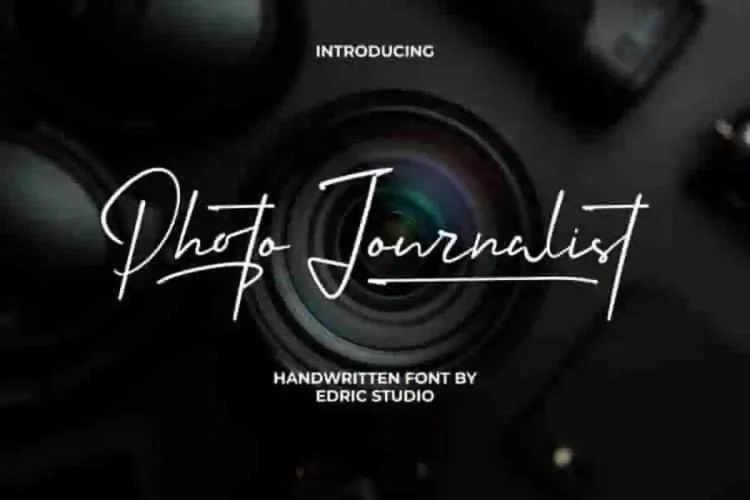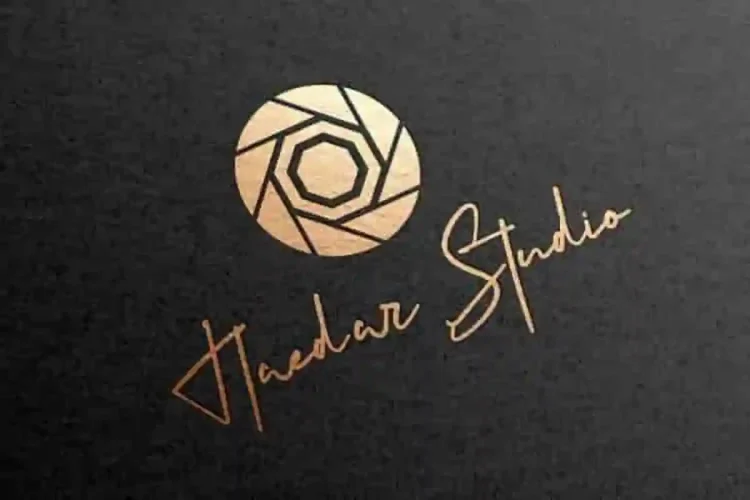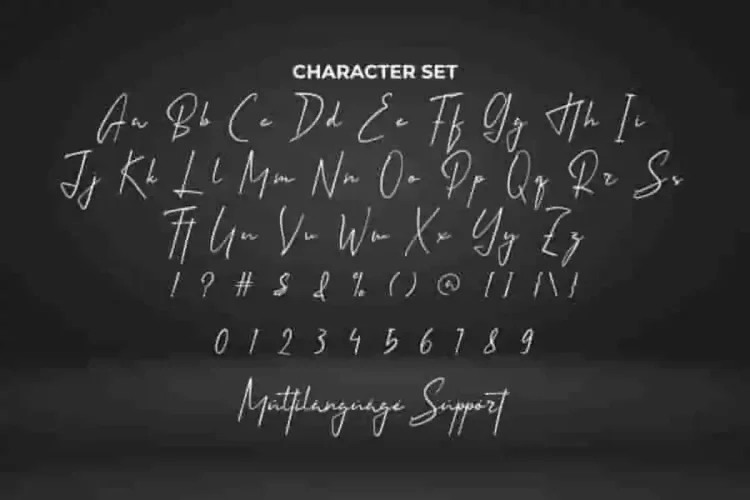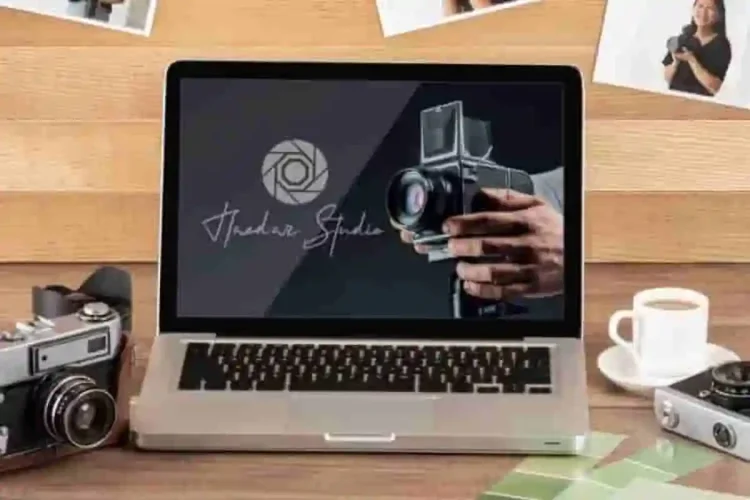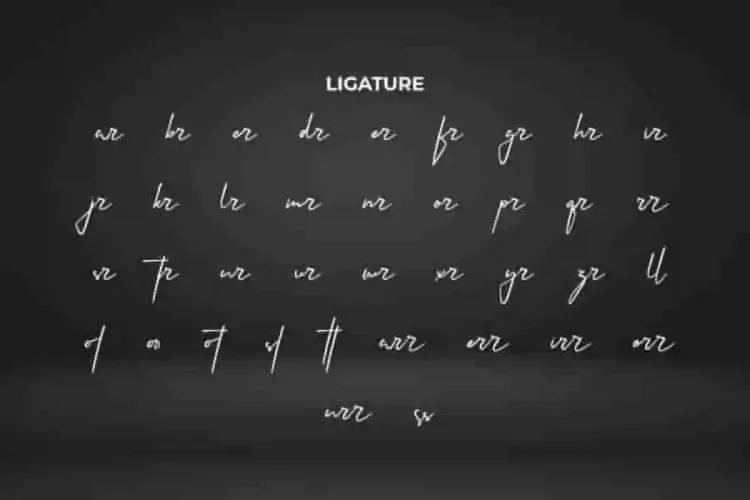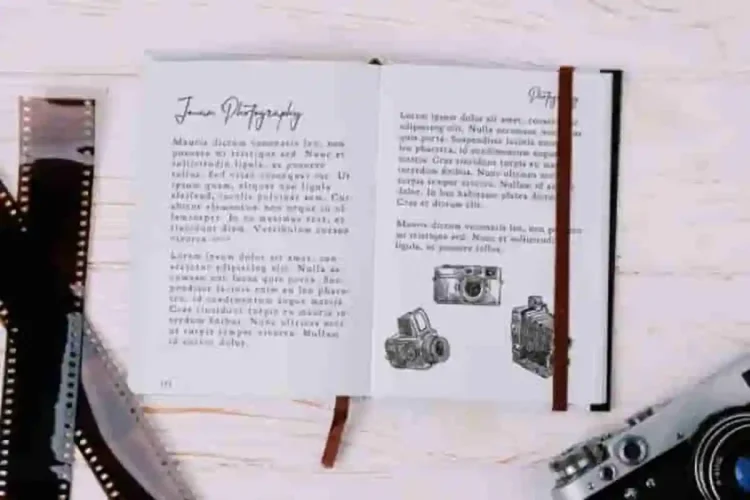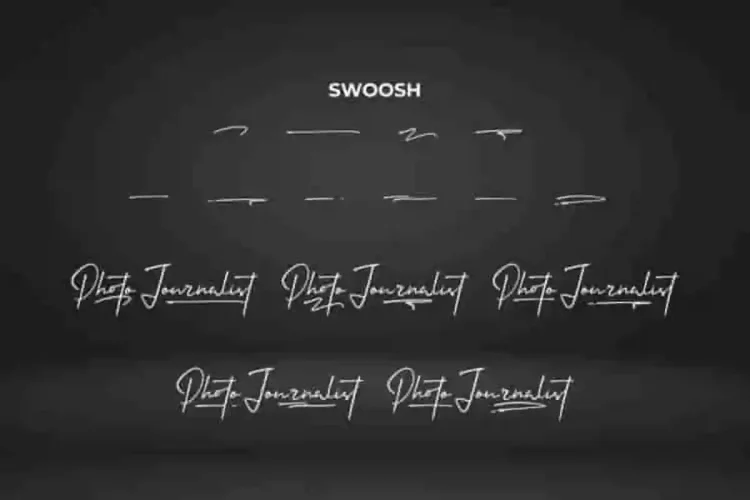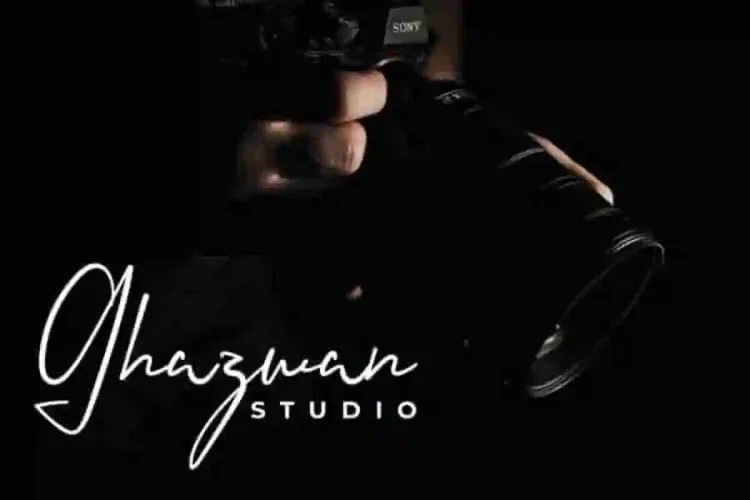
Photo Journalist Handwritting Font is a classy and professional handwritten signature font. Designed to capture the elegance of natural handwriting, this typeface is perfect for brands and creatives who want to leave a lasting impression.
Photo Journalist Handwritting Signature Font comes with a full set of Uppercase and Lowercase Basic Characters, Number, a large range of Punctuation, Symbol, and Swoosh. It has a stunning characters set, perfectly managed with well spaced and kerning.
Photo Journalist Font is a playful typeface with unique decoration in each character. Ready to use both on Windows machine or Mac with simple installations. It’s tested to work well in the Adobe Apps (Illustrator, Adobe InDesign, Adobe Photoshop) even work on Microsoft Word. PUA Encode Characters means you can access all the glyphs and other additional characters easily – Fully accessible without additional design software.